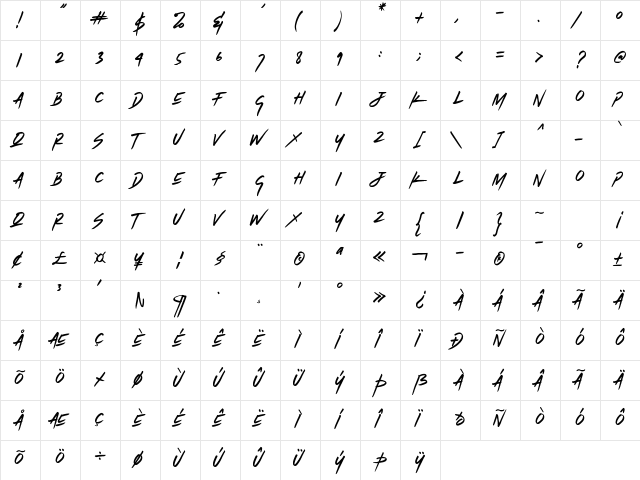
Tiger Walk Regular
| Designer | Seno Aji Font 2019 |
Design Context for Tiger Walk Typeface
Tiger Walk is a composed and adaptable typeface that performs quietly and consistently across a wide range of design contexts.